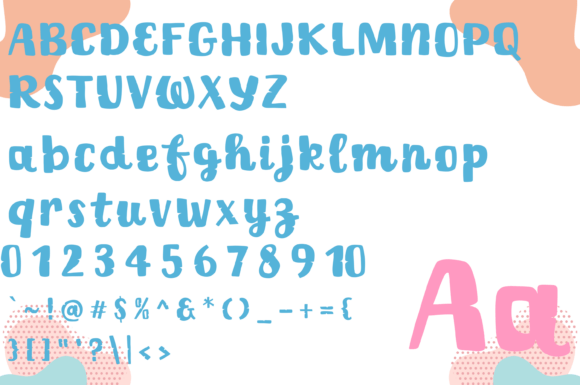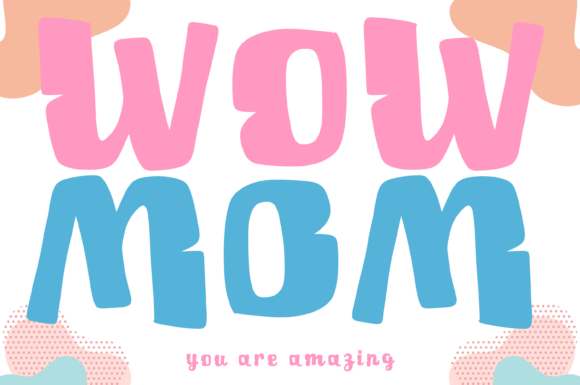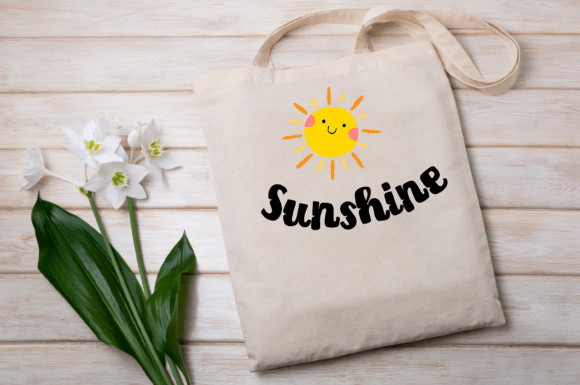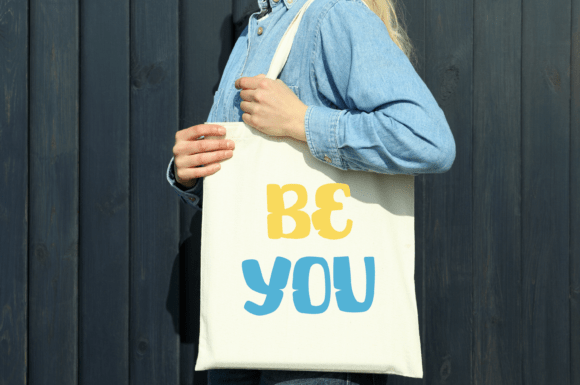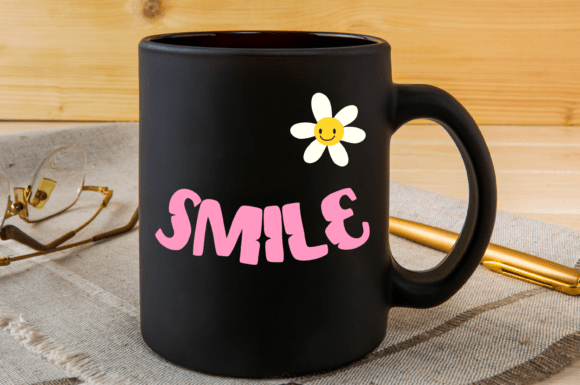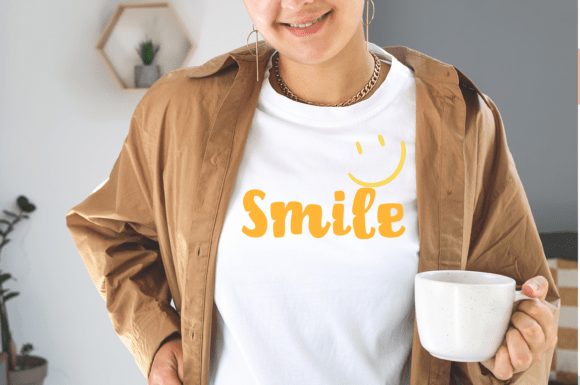
Introduction to Pumpkin Playful Font
Pumpkin Playful is a bold, rounded display font with a fun and slightly quirky look.
Its chunky strokes and irregular curves create a playful, cartoon-like style, making it perfect for Halloween posters, spooky-themed crafts, kid-friendly party invitations, or fun merchandise The letters balance between spooky and cheerful, offering versatility for seasonal designs.